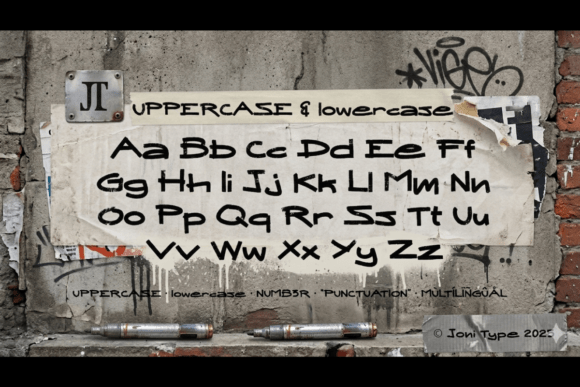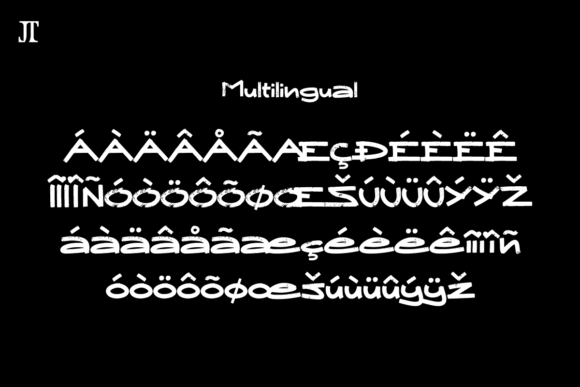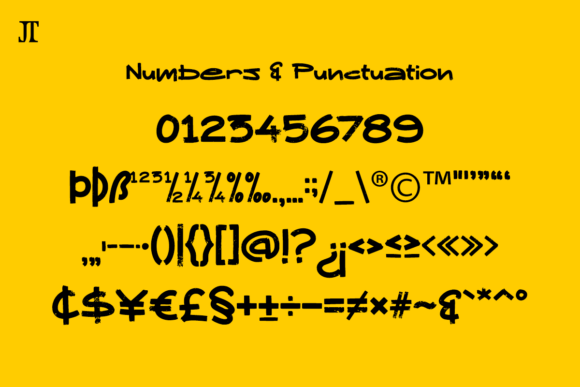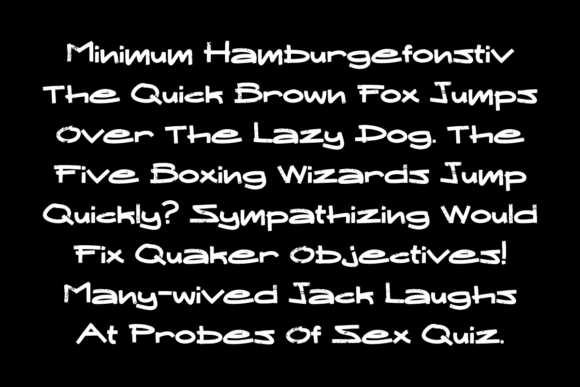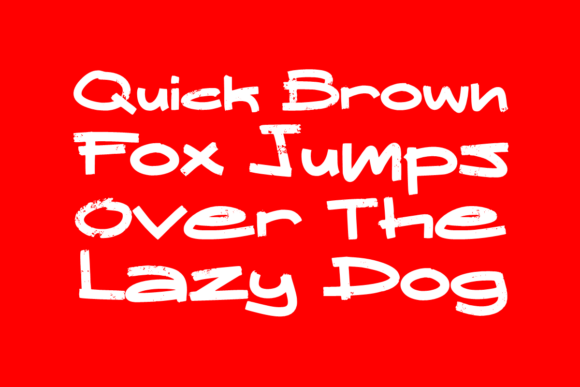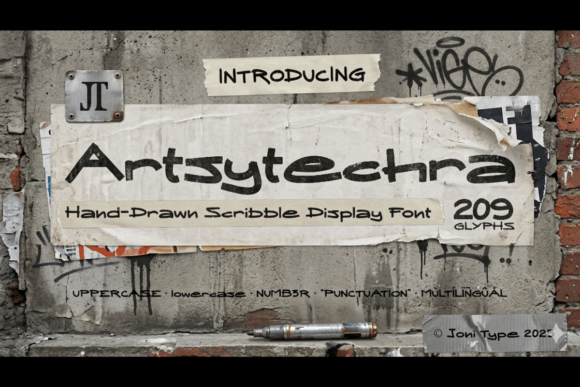
Introducing Artsytechra Font: Unleash Your Creativity with a Bold, Hand-Drawn Scribble Display Font
Are you tired of using the same old fonts in your designs? Do you want to add a touch of raw, urban energy to your projects? Look no further than Artsytechra Font, a bold, hand-drawn scribble display font that captures the authentic look of street art, urban textures, and rebellious creative energy.
Inspired by Street Art and Urban Textures
Artsytechra Font is inspired by the imperfections and irregularities of raw street art, graffiti tags, and spontaneous hand lettering. Every character in this font carries a natural irregularity that makes your designs feel more human, edgy, and attention-grabbing. With Artsytechra, you can add a touch of grit and playfulness to your designs, making them stand out in a crowded digital landscape.
Key Features of Artsytechra Font
- Uppercase & Lowercase Letters: Artsytechra Font includes both uppercase and lowercase letters, giving you the flexibility to create a wide range of designs.
- Numbers & Punctuation: In addition to letters, Artsytechra Font also includes numbers and punctuation marks, making it a comprehensive font for all your design needs.
- Multilingual Support: Artsytechra Font supports multiple languages, making it a great choice for designers who work with international clients or want to create designs for a global audience.
- 209 Glyphs: With 209 glyphs, Artsytechra Font offers a wide range of characters and symbols to help you create unique and creative designs.
- Hand-drawn Scribble Style: The hand-drawn scribble style of Artsytechra Font gives it a unique, imperfect look that’s perfect for designers who want to add a touch of personality to their designs.
- Unique Imperfect Letterforms: Every character in Artsytechra Font has a unique, imperfect look that makes your designs feel more human and edgy.
Artsytechra Font is perfect for a wide range of design projects, including:
- Streetwear & Fashion Branding: Add a touch of urban energy to your streetwear and fashion branding with Artsytechra Font.
- Album Artwork: Create eye-catching album artwork with Artsytechra Font’s bold, hand-drawn style.
- Posters & Flyers: Artsytechra Font is perfect for creating posters and flyers that need to grab attention.
- Social Media Graphics: Add a touch of personality to your social media graphics with Artsytechra Font.
- YouTube Thumbnails: Create eye-catching YouTube thumbnails with Artsytechra Font’s bold, hand-drawn style.
- Urban / Grunge Themed Designs: Artsytechra Font is perfect for creating urban and grunge-themed designs that need a bold, edgy look.
- Creative Branding Projects: Artsytechra Font is a great choice for creative branding projects that need a unique, attention-grabbing font.
Artsytechra Font is a bold, hand-drawn scribble display font that’s perfect for designers who want to add a touch of raw, urban energy to their designs. With its unique, imperfect letterforms and comprehensive character set, Artsytechra Font is a great choice for a wide range of design projects. Whether you’re creating streetwear branding, music artwork, posters, or social media content, Artsytechra Font delivers a gritty yet playful aesthetic that stands out instantly.